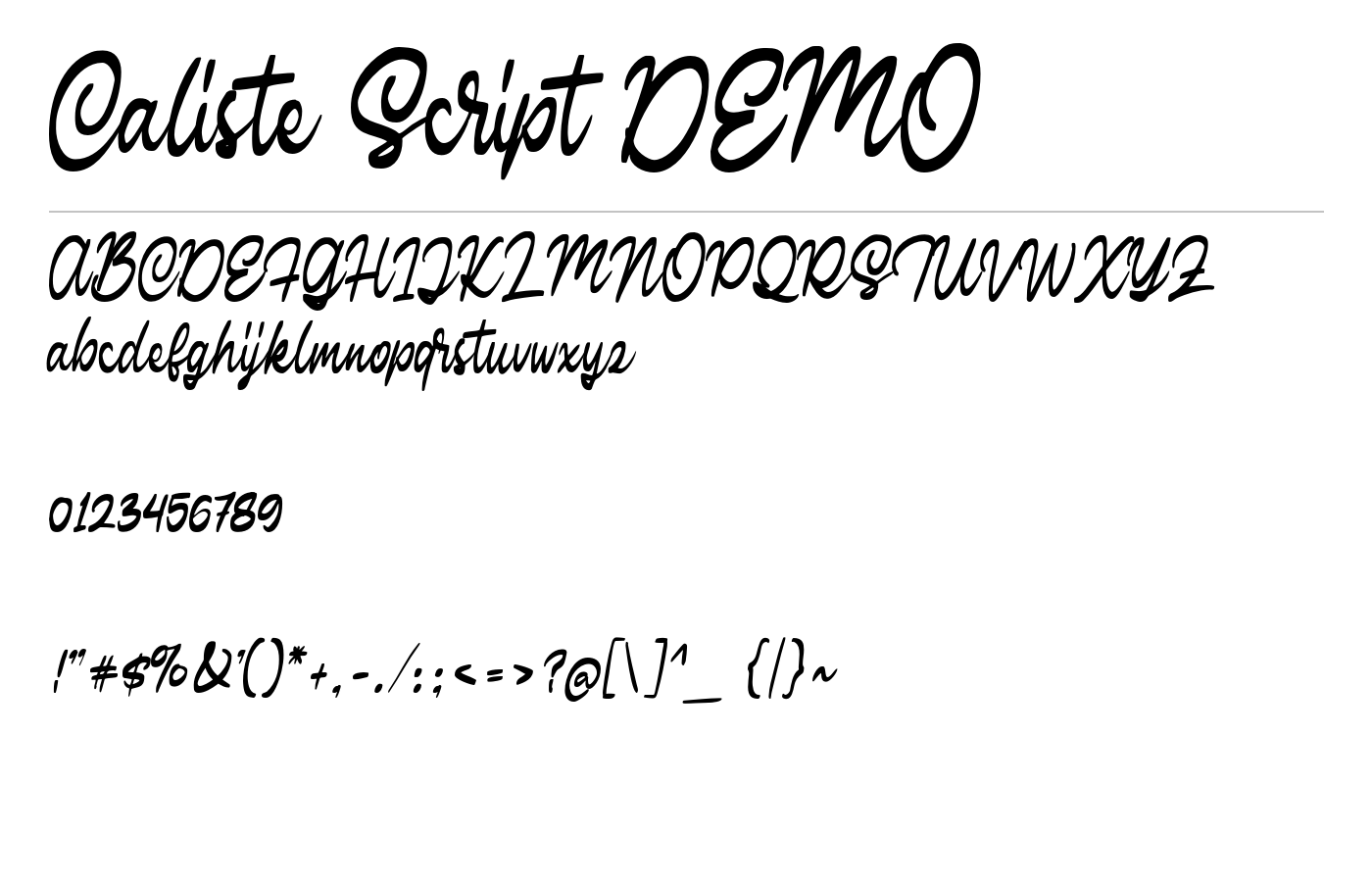
Caliste Script DEMO is a lively and elegant script font featuring smooth, flowing letterforms with a casual handwritten feel. Its moderately bold weight and slightly condensed width make it perfect for creating a personal, stylish touch in branding, invitations, and headlines where a warm and approachable yet sophisticated look is desired. This font works beautifully in projects that seek a balance between charm and readability.
Caliste Script DEMO Font
About Caliste Script DEMO Font
| Font family | Caliste Script DEMO Font |